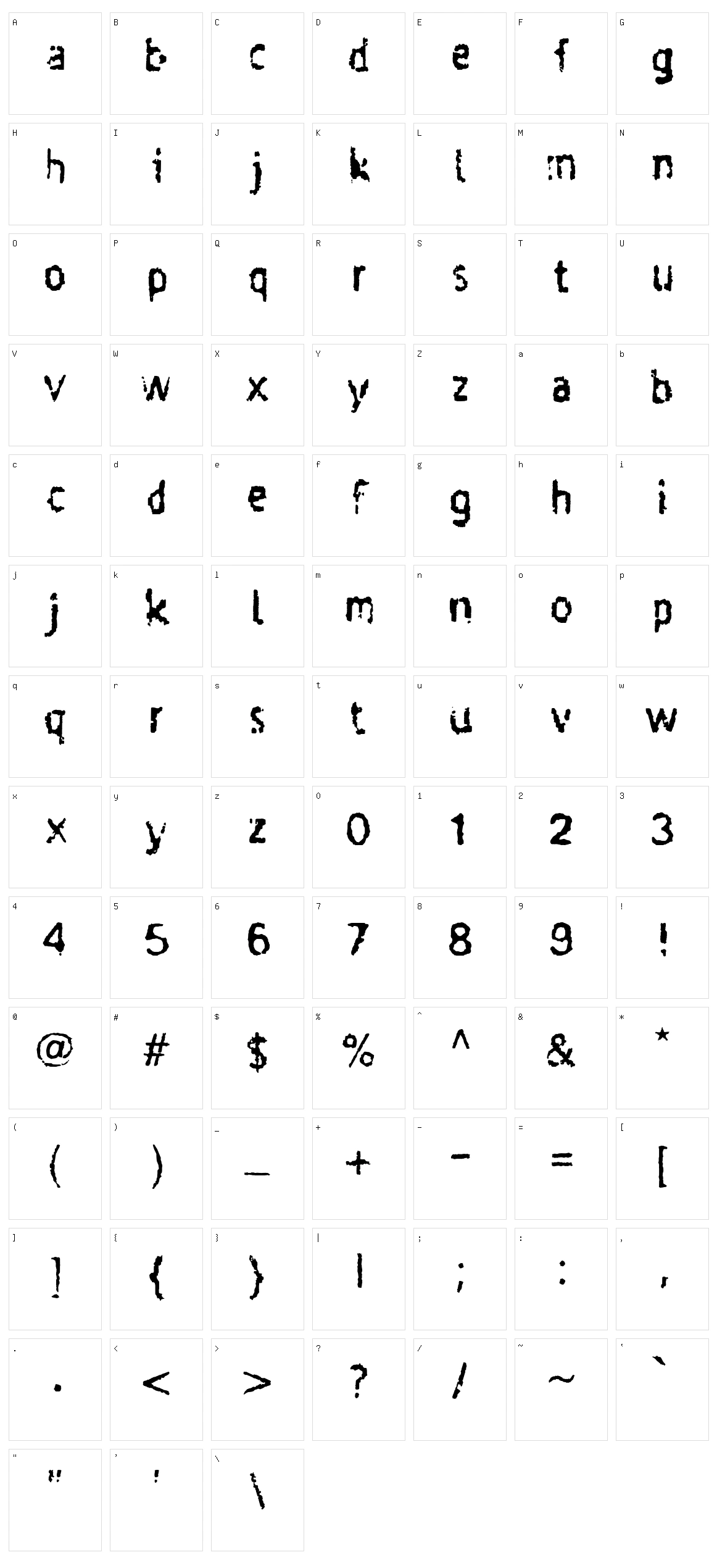
The free font Taigatrust is carefully designed by Michael Bulgrin, showcasing a thoughtful balance of creativity and usability and falls under the Destroy font style. When you download the ZIP file, it contains only 120.28 KB of font files, making it lightweight and quick to download. Please review the license details below to understand permitted usage and distribution rights. If license information is not available, we recommend using this font for personal projects only or contacting the author directly for commercial usage permissions.